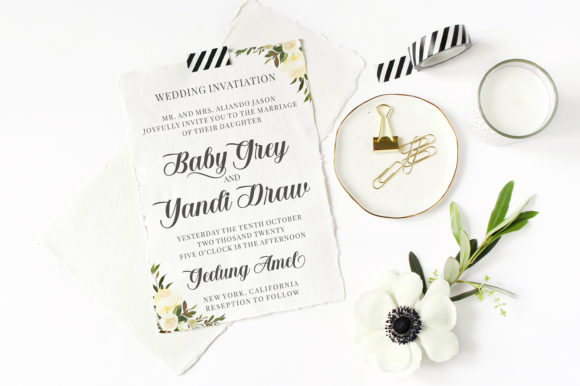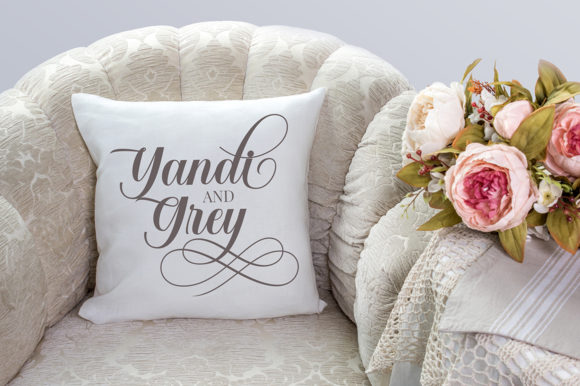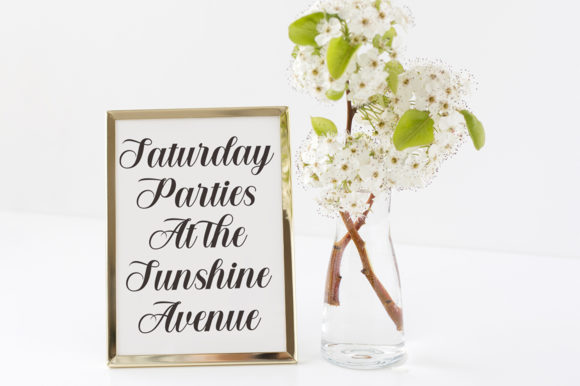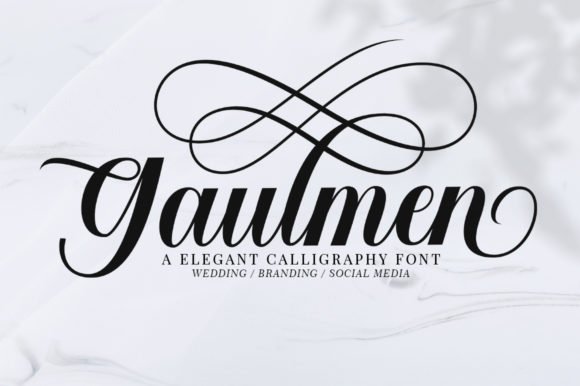
Introduction to Gaulmen Font
Gaulmen feels fresh and playful and features gorgeous swashes.
Get inspired by its elegant calligraphic elements .
Key Features of Gaulmen Font
Why Choose Gaulmen Font?
Gaulmen Font offers exceptional quality and versatility, making it a valuable addition to your design toolkit. Whether you’re creating for personal projects or commercial use, Gaulmen Font delivers professional results.